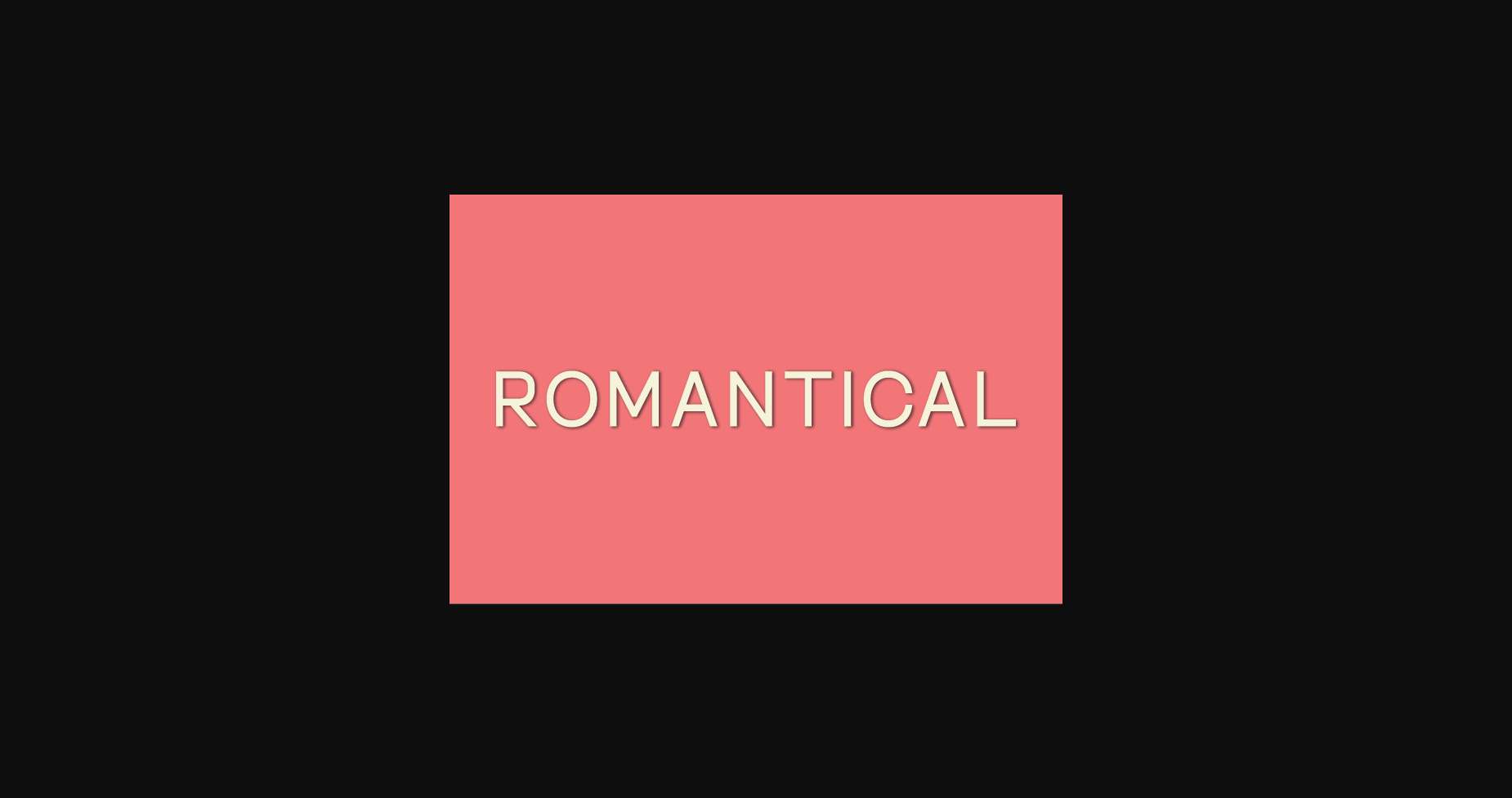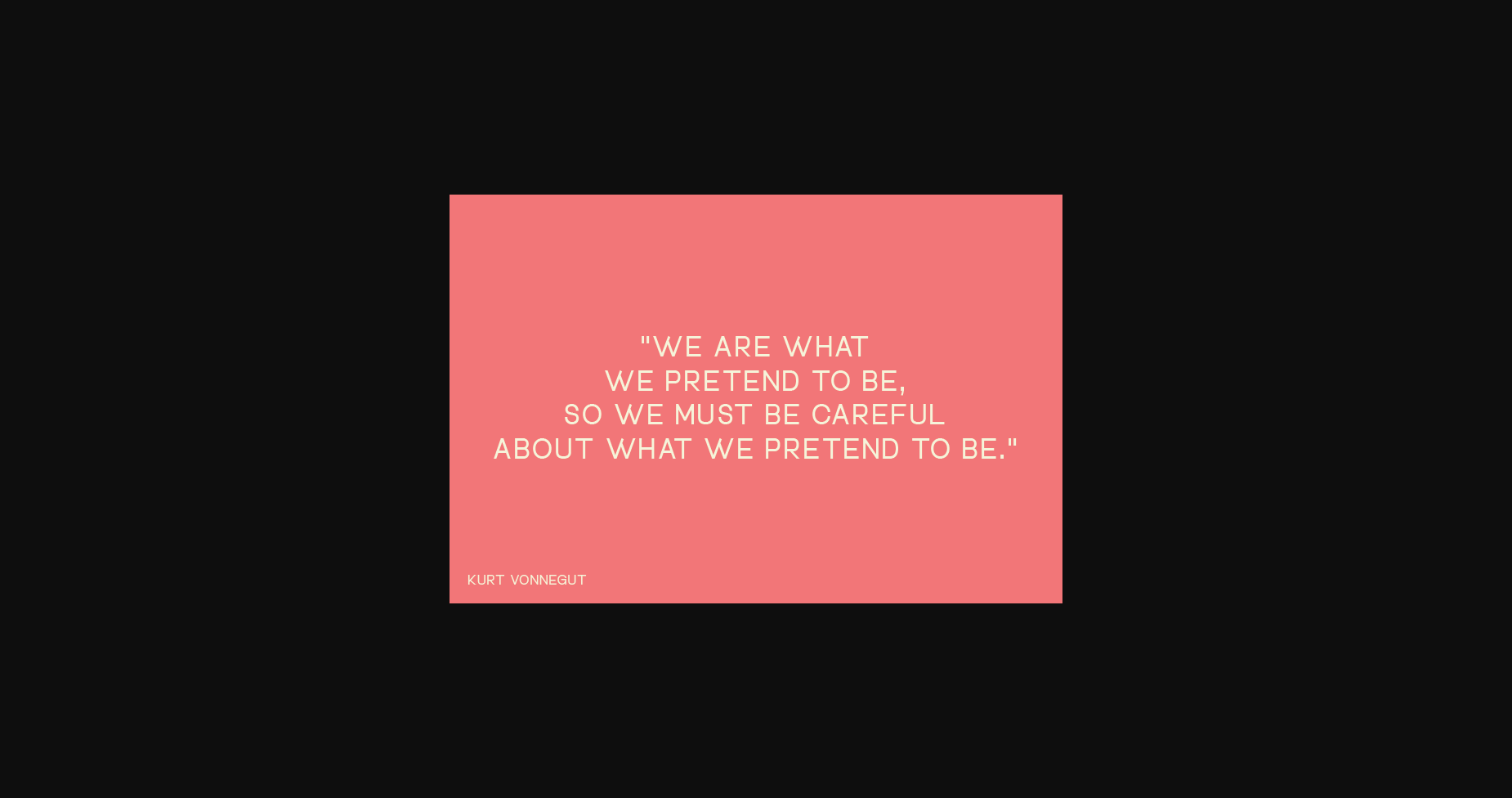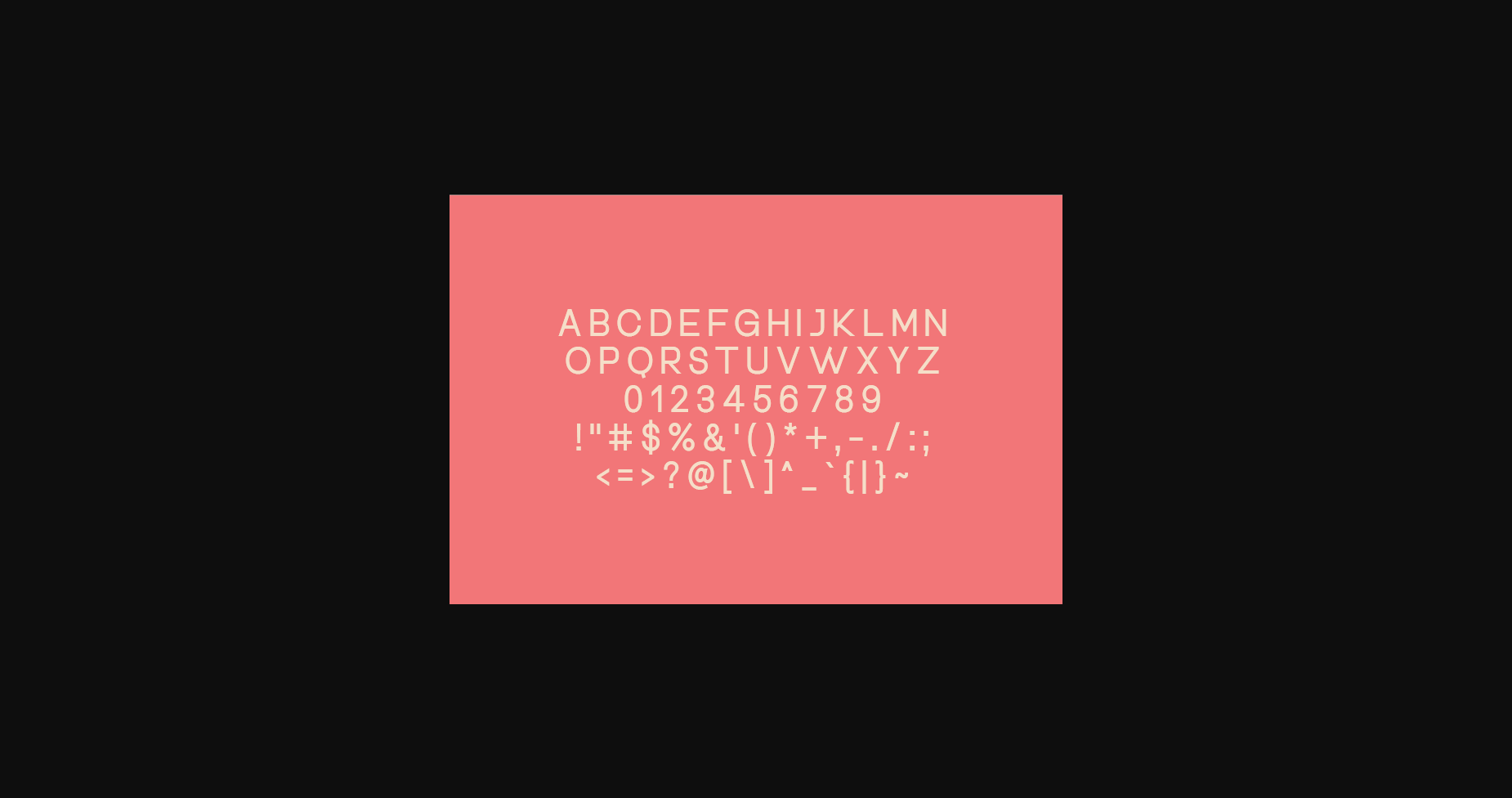
About Romantical Font
Introducing Romantical, a modern, classy sans serif typeface. A sans serif typeface that contains upper characters, numbers 0-9, and a range of punctuation and symbols. An extremely versatile font, perfect for logos, weddings, invitations, quotes, advertisements, print, magazines, and more!